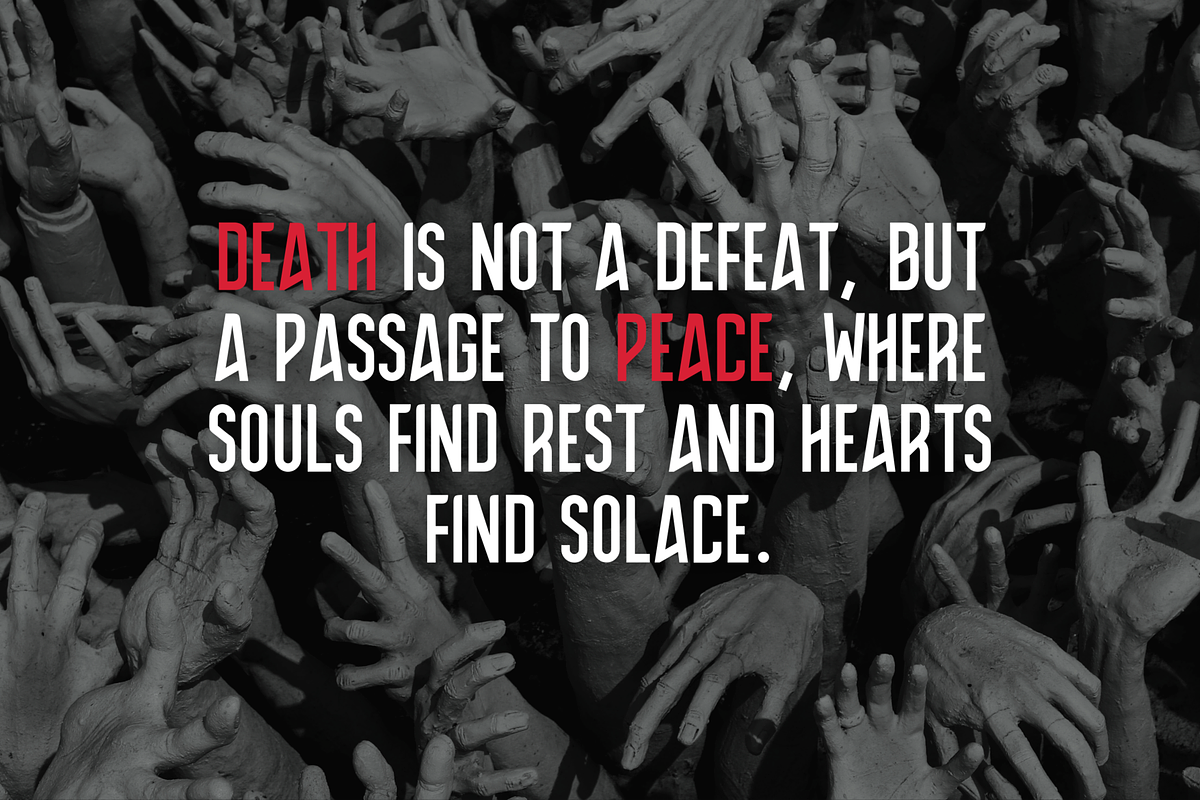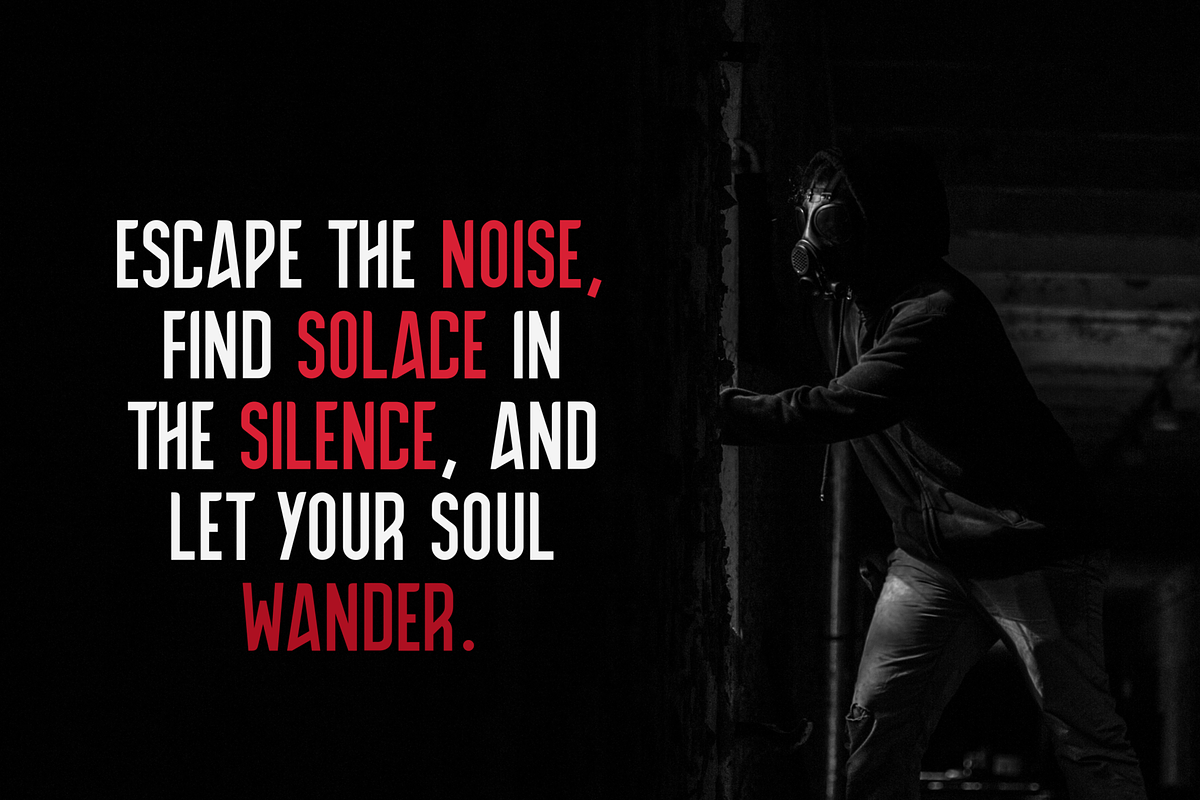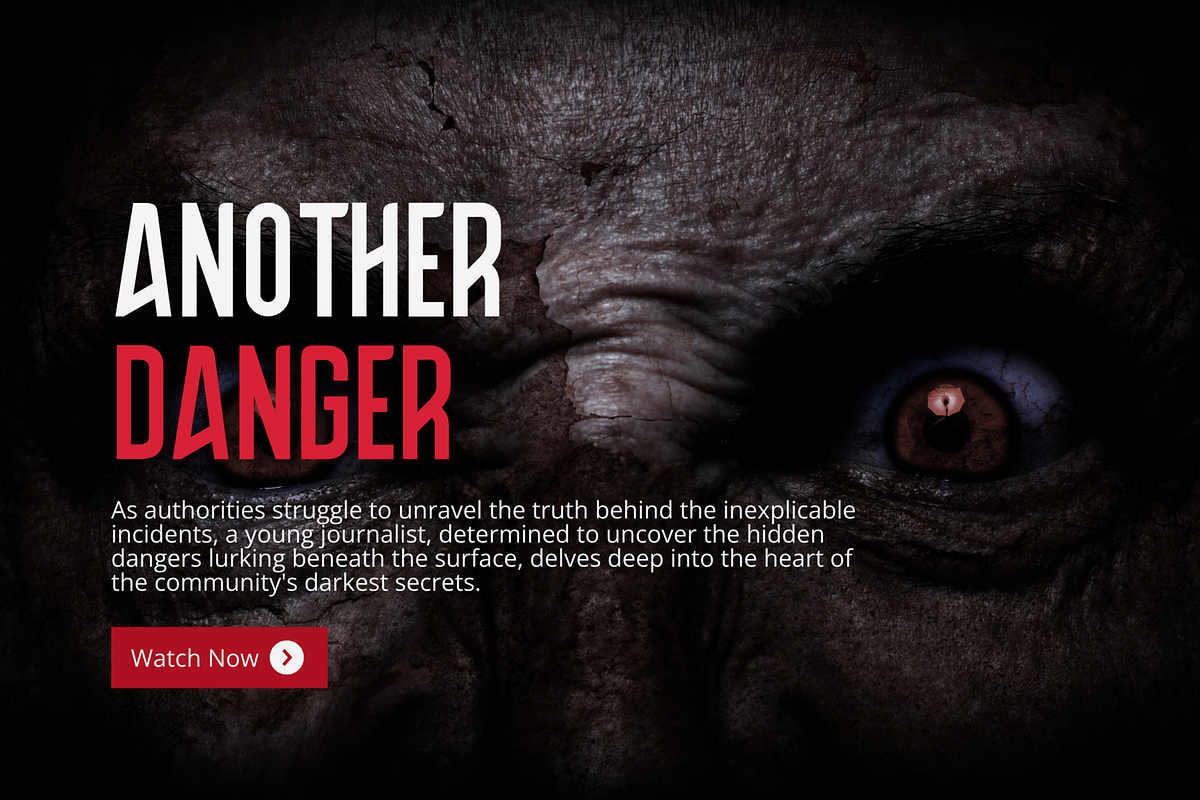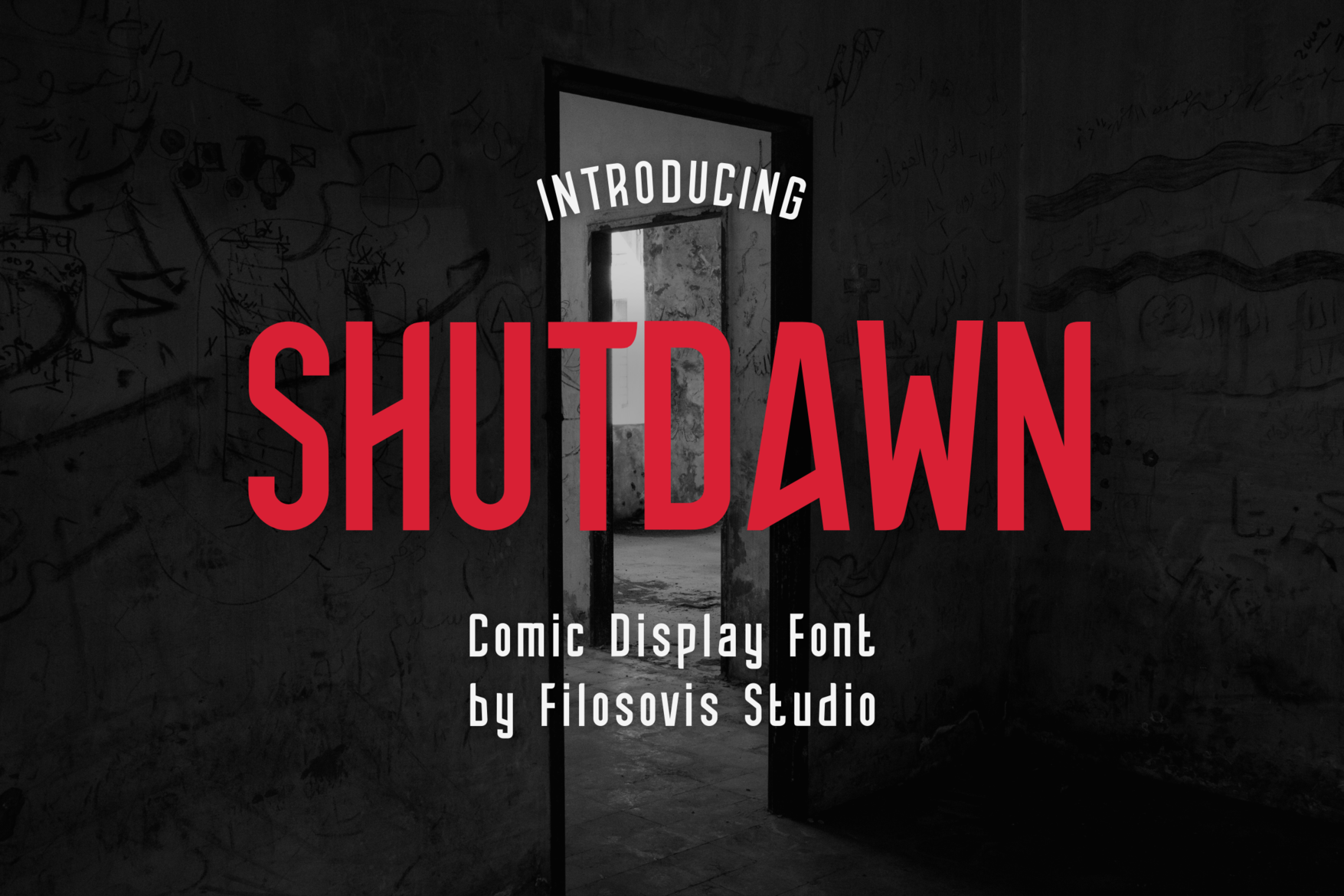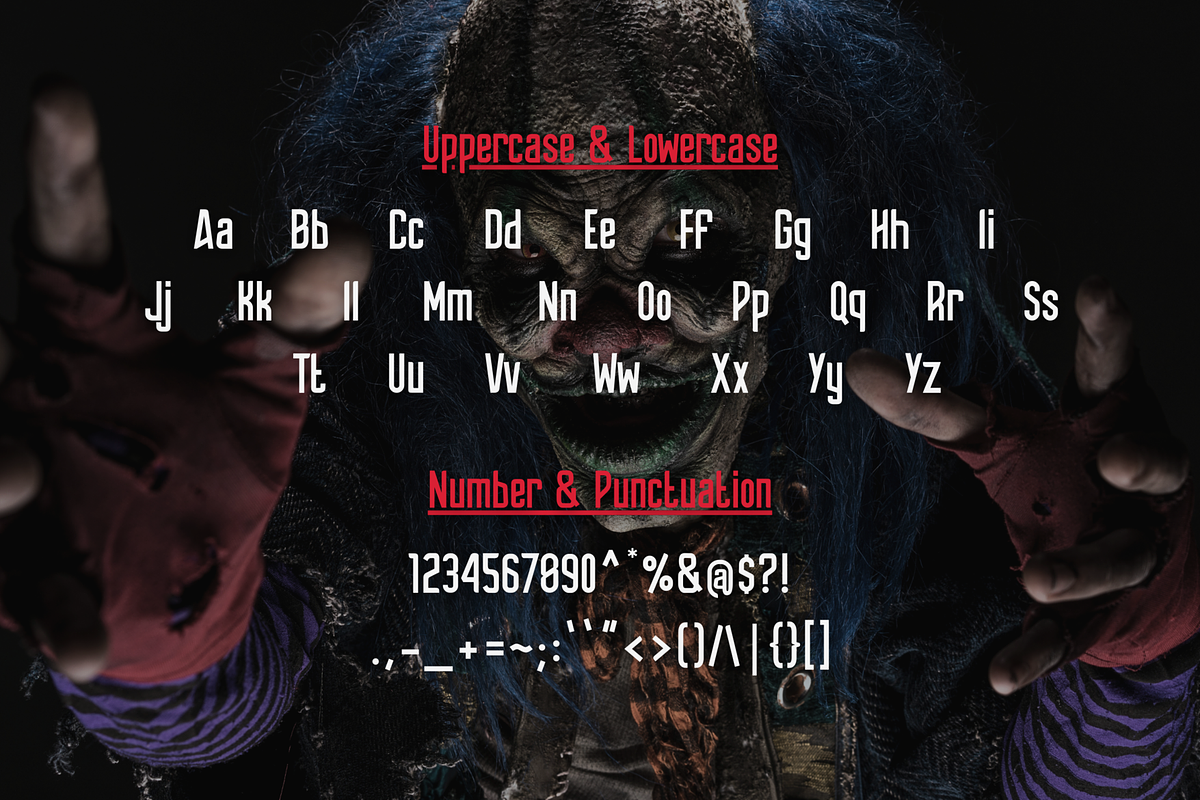
Shutdawn | Comic Display Font
Shutdawn is a fun and comic display font that adds a playful twist to any design. With its whimsical letterforms and unique charm, it's perfect for eye-catching headlines, vibrant posters, and playful branding projects. Infuse your creations with joy and personality with Shutdawn!
- Uppercase Characters
- Lowercase Characters